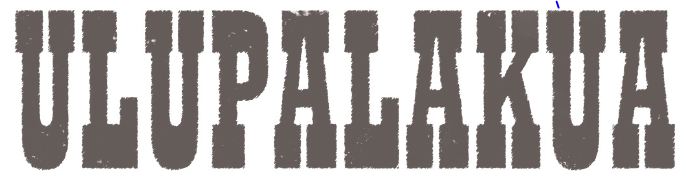
anybody know this font, or if the distressed aspect is custom?
I think it looks a lot like branding iron, except for the distressed part, but I don't even have that font on my laptop tonight, and I'm supposed to try to get a few layouts done...
hopefully I'll luck out and there is some free derivative...